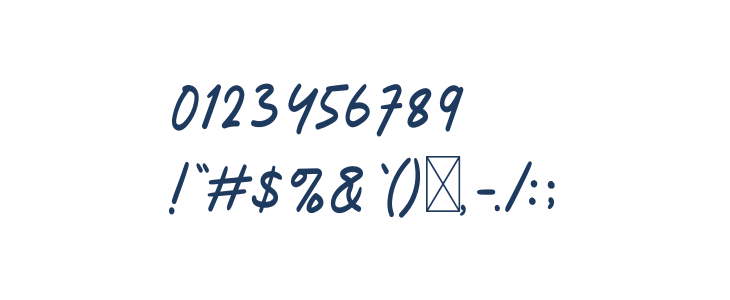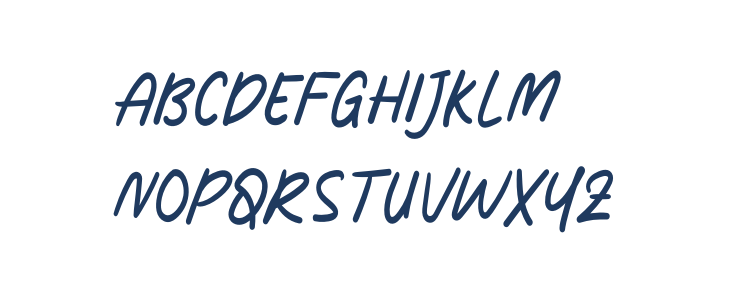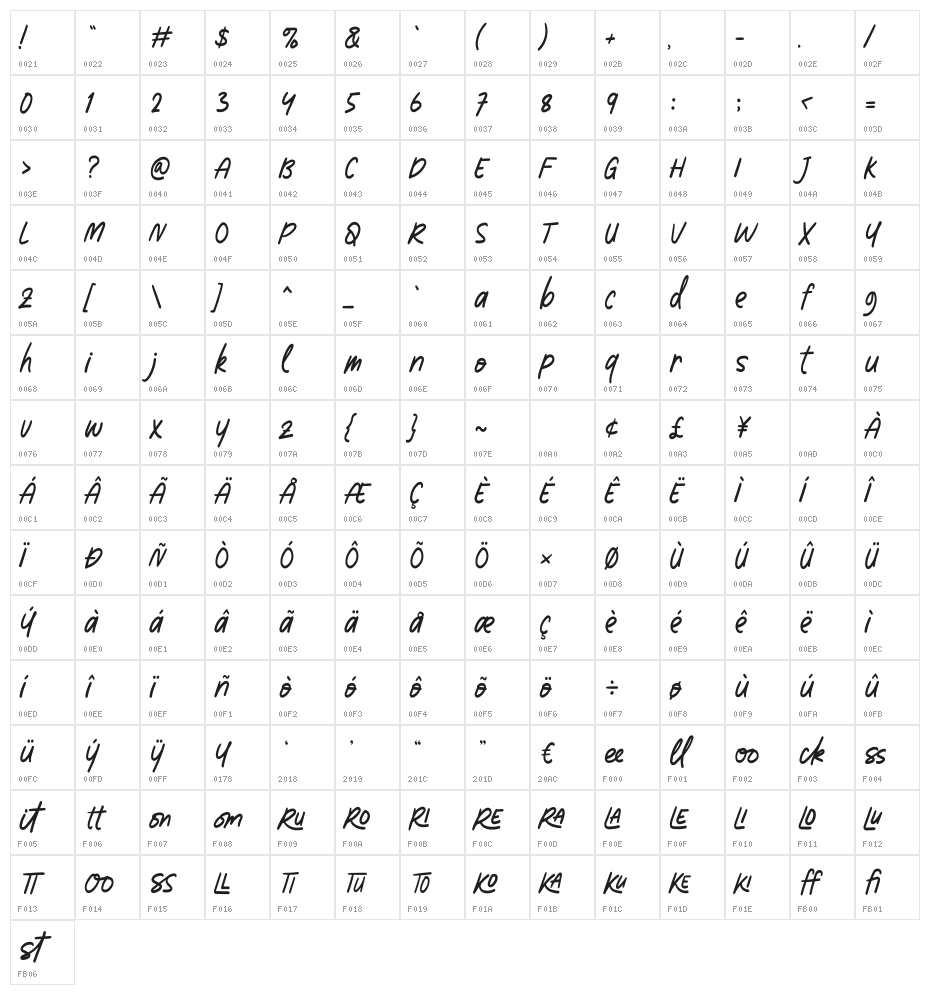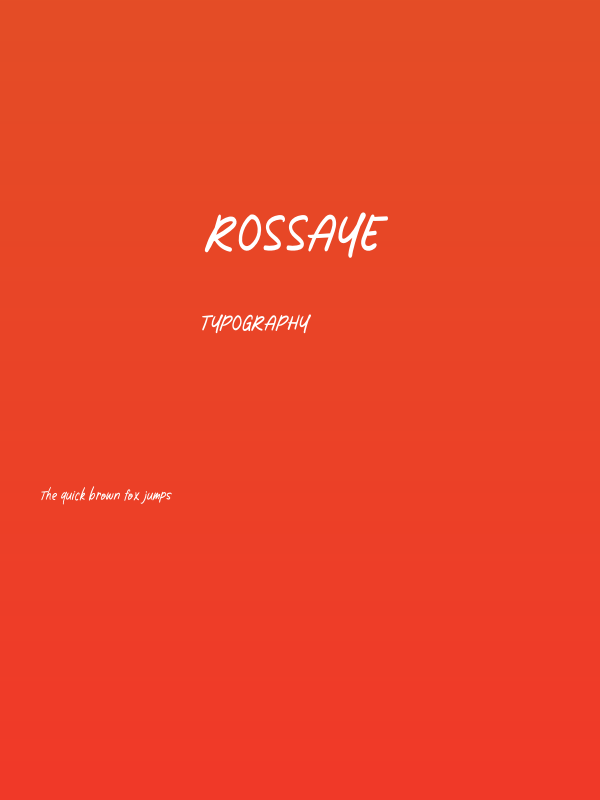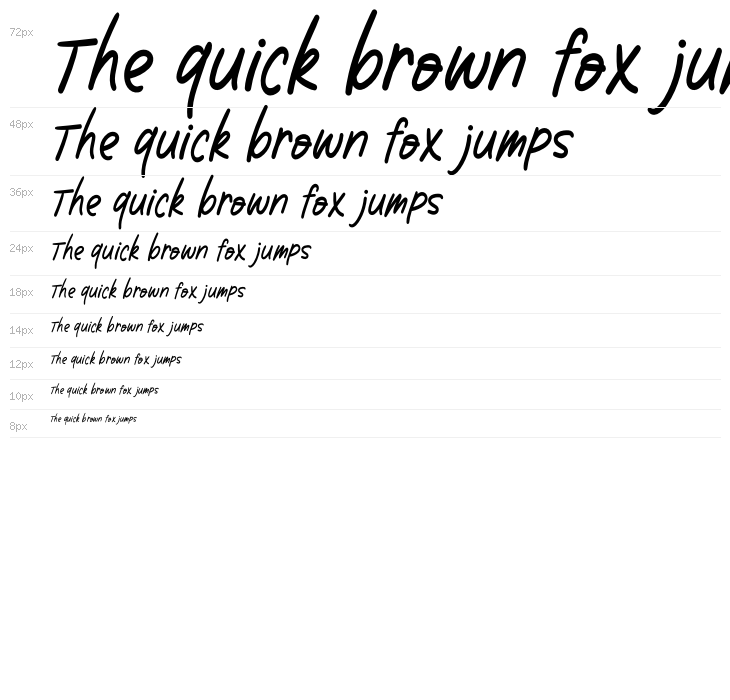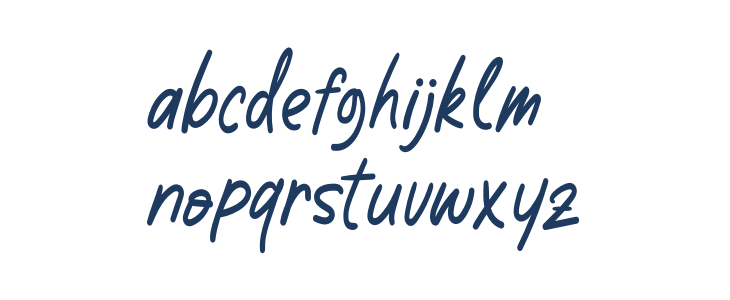
Rossaye Font
Rossaye Description
A casual, handwritten script font with smooth, slightly slanted strokes and rounded terminals, giving it an informal and approachable feel. The characters are well-spaced and legible, with consistent stroke thickness and a natural flow reminiscent of quick, neat handwriting.
| Overall Style | Casual, Handwritten, Informal |
| Use Case | Logos, Headlines, Short text, Invitations |
| Proposed Projects | Greeting cards, personal branding, informal invitations, social media graphics, children's books. |